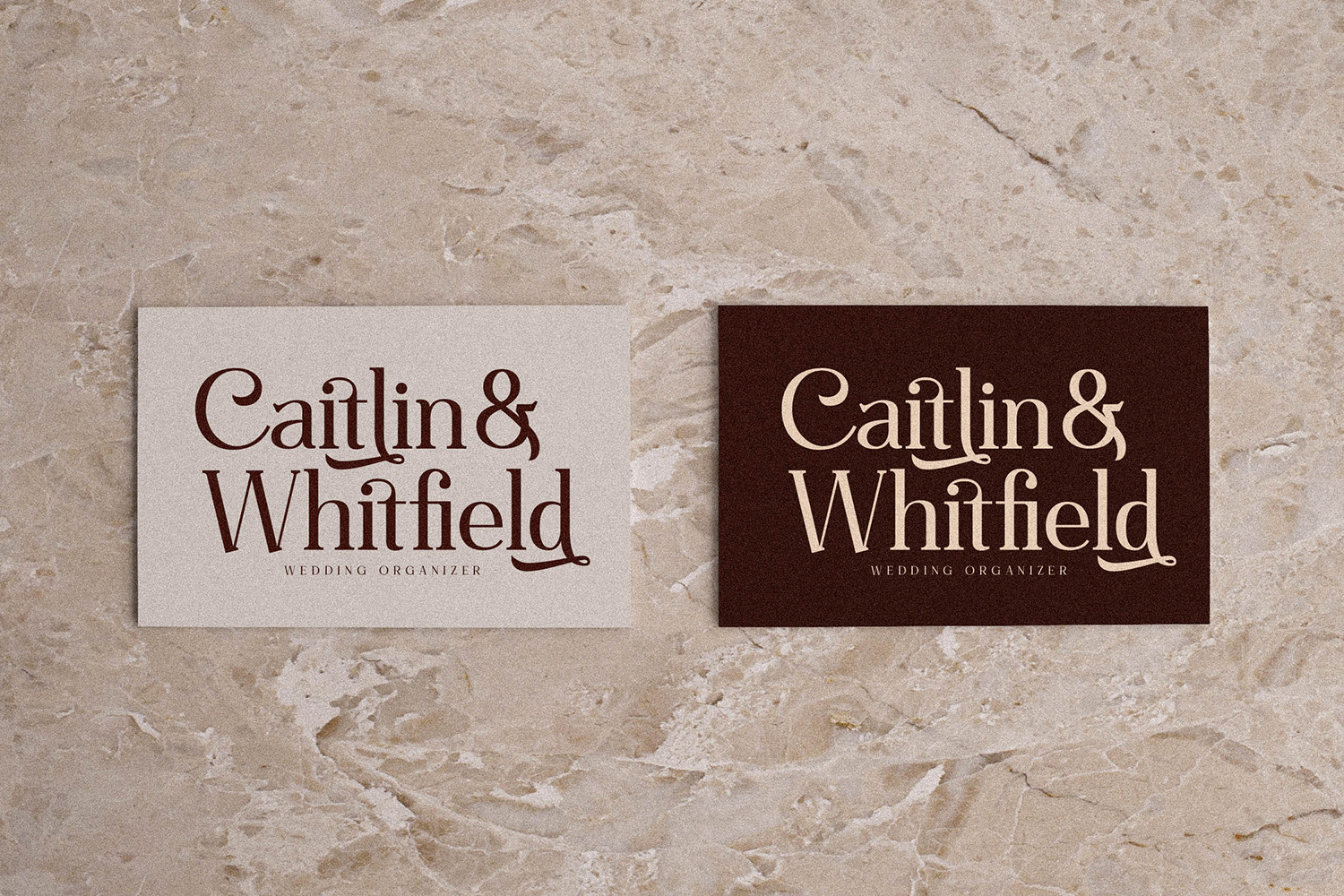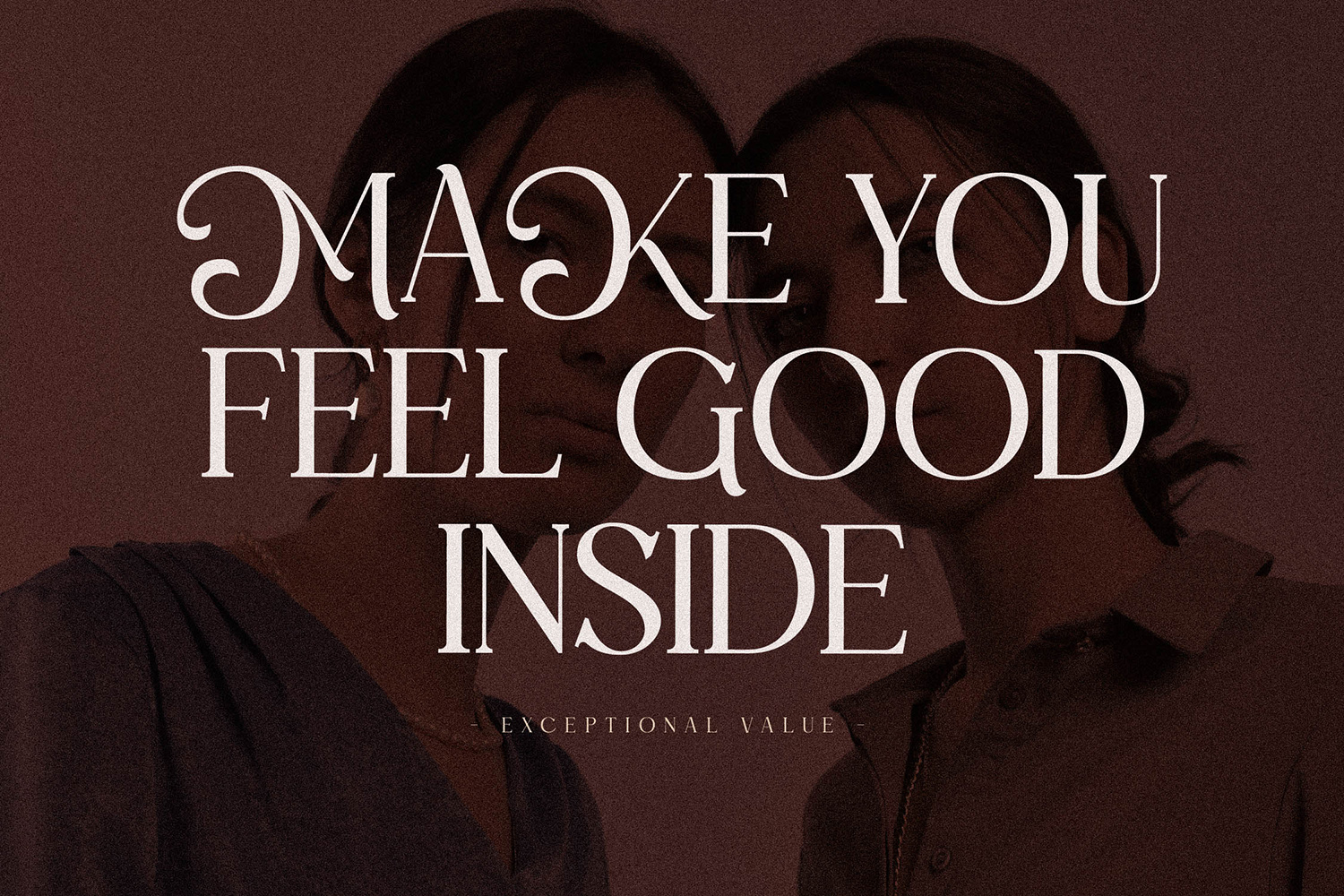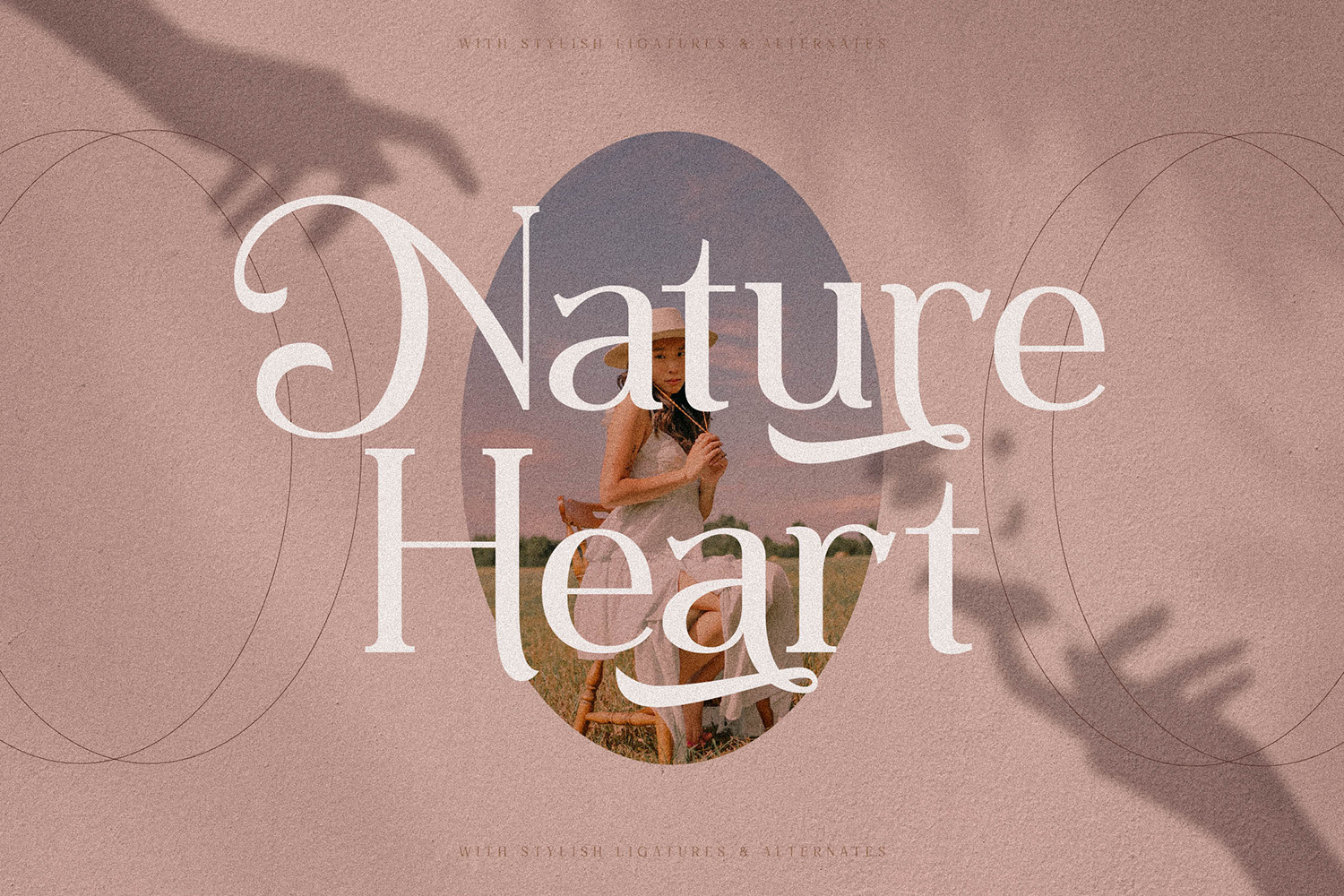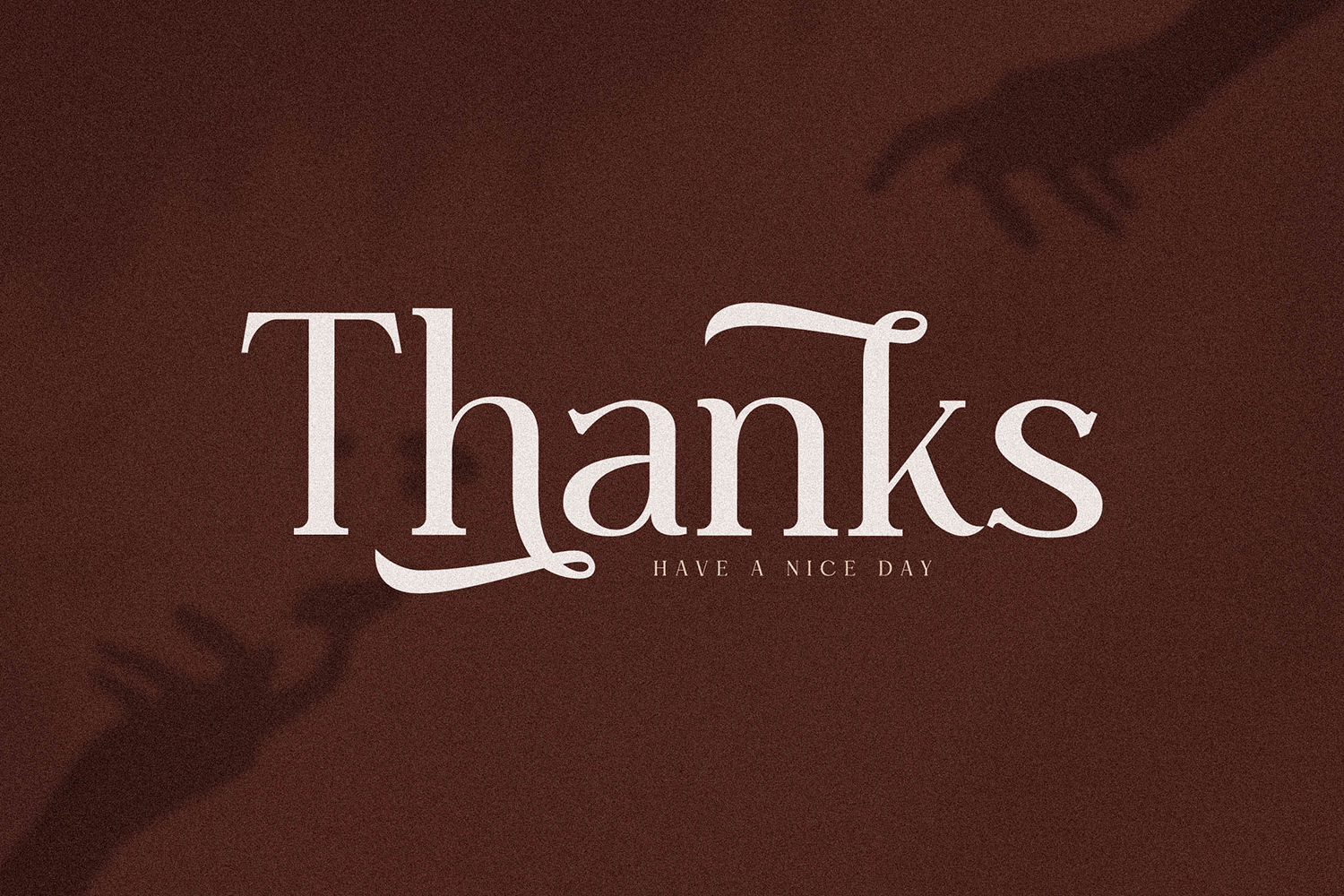
Madeline Free Font
Madeline Free Font is a modern take on the classic serif style, featuring elegant and refined lines that add a touch of sophistication to any design project. With its clean and sleek design, this font is perfect for creating professional-looking documents, such as resumes and business cards, as well as for use in branding and marketing materials. The Madeline font family includes a variety of weights and styles, making it versatile and adaptable to a wide range of design needs. Whether you’re looking to create a polished and professional look or add a touch of elegance to your latest design project, the Madeline Free Font is a perfect choice.